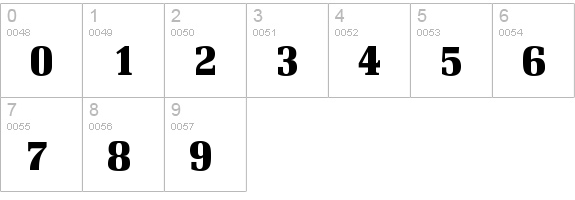
Renault Bold is a strong, high-contrast variant in the Renault typeface family \xE2\x80\x94 well suited to headlines, attention-grabbing titles, and strong calls-to-action.
Renault Bold font is a stunning display typeface that exudes confidence and boldness. Its strong and commanding letterforms make it perfect for headlines, titles, and logos that demand attention. With its sleek and modern design, Renault Bold adds a touch of sophistication to any design project. But what makes Renault Bold even more appealing is that it is available for free! That's right, you can easily download this amazing font at FontsMarket.com without spending a dime. Whether you're a professional designer or a hobbyist, having access to high-quality fonts at no cost is a game-changer. Renault Bold's versatility is another reason to love this font. It effortlessly adapts to various design styles, from minimalist to futuristic, making it a go-to choice for any creative project. Its clean lines and well-defined letterforms ensure legibility even at smaller sizes, making it suitable for both print and digital applications. Imagine creating eye-catching posters, captivating social media graphics, or stunning website headers using Renault Bold. With its strong visual impact and distinctive character, this font will undoubtedly leave a lasting impression on your audience. So why wait? Head over to FontsMarket.com and download Renault Bold for free today. Elevate your designs with this powerful and expressive font, and watch as your creative visions come to life.